Searching for some spooky, scary or horror themed fonts for your next Adobe Express project? I’ve got you covered.
I’ve put together a collection of more than 80 Halloween fonts from Adobe Express plus some additional Halloween font pairings that you can use for your designs.
Whether you’re creating a poster, a printable, a book cover, or some social media content for Halloween you’re bound to find a few fonts that fit the bill.
Best Halloween Fonts in Adobe Express
Below are some of the best Halloween fonts I discovered in Adobe Express. With over 80 spooky, scary, and horror-inspired styles to choose from, there’s something here for every type of Halloween project.
If you’re working on Halloween designs, scroll down and explore:
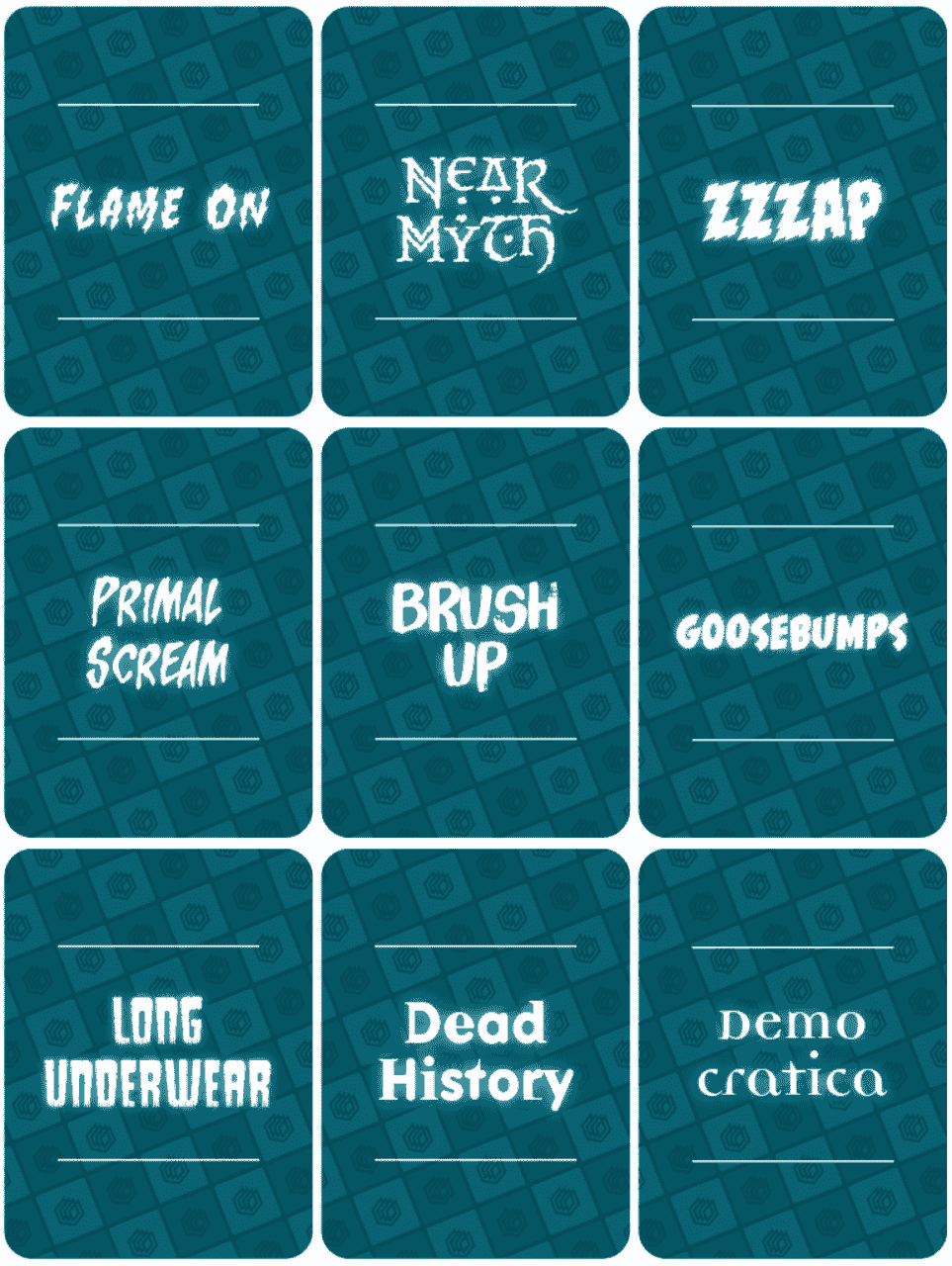
Adobe Express Halloween font list:
- CCFlameOn
- CCNearMyth
- CCZzzap
- CCPrimalScream
- Brush Up
- CCGoosebumps
- CCLongUnderwear
- Dead History OT
- Democratica OT
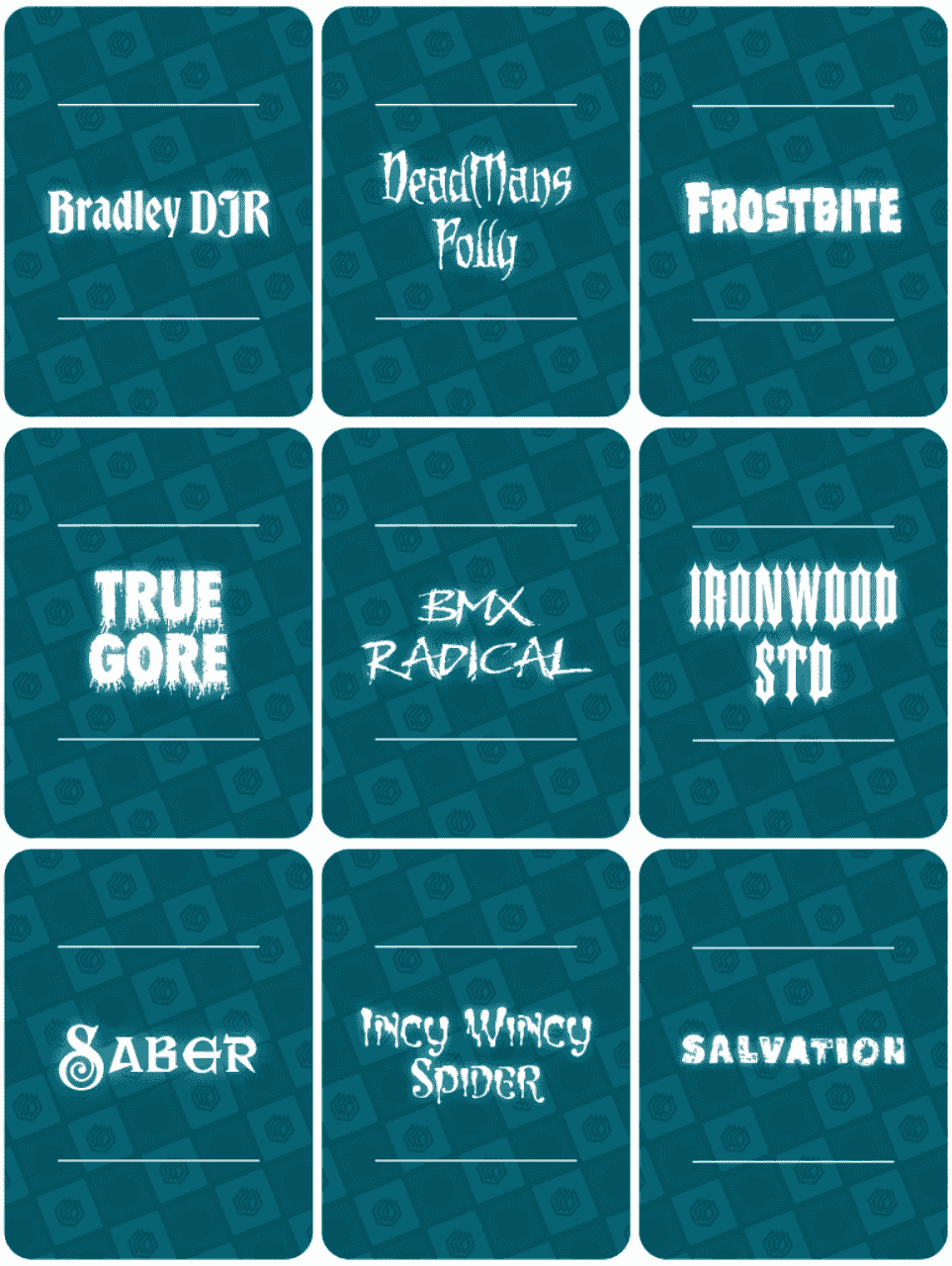
Adobe Express Halloween font list:
- Bradley DJR
- CCDeadMans
- CCFrostbite
- True Gore
- BMX Radical
- Ironwood Std
- Saber
- CCIncyWincySpider
- Salvation
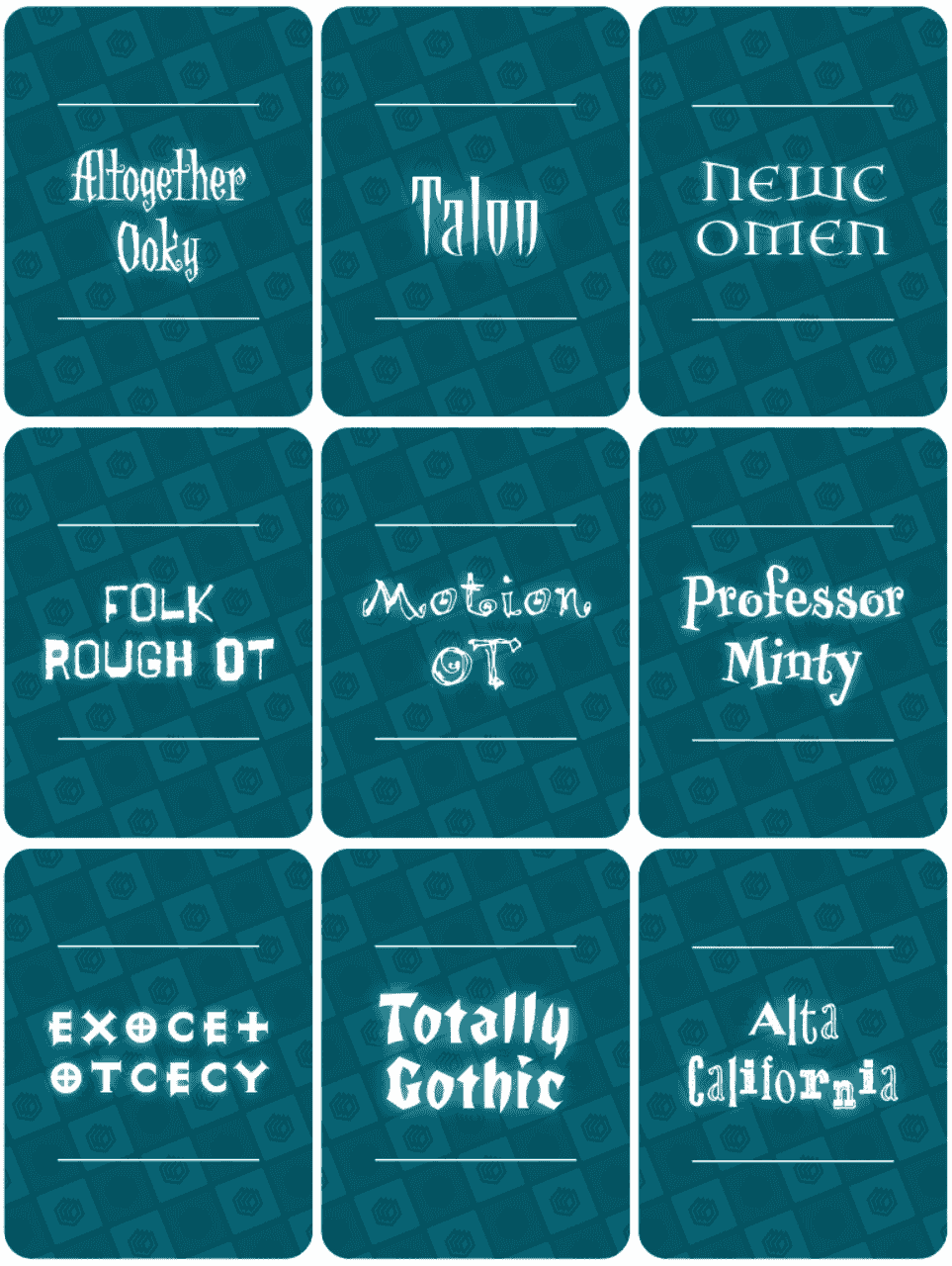
Adobe Express Halloween font list:
- CCAltogetherOoky
- Talon
- Newcomen
- Folk Rough OT
- Motion OT
- Professor Minty
- Exocet OTCECY
- TotallyGothic OT
- AltaCalifornia
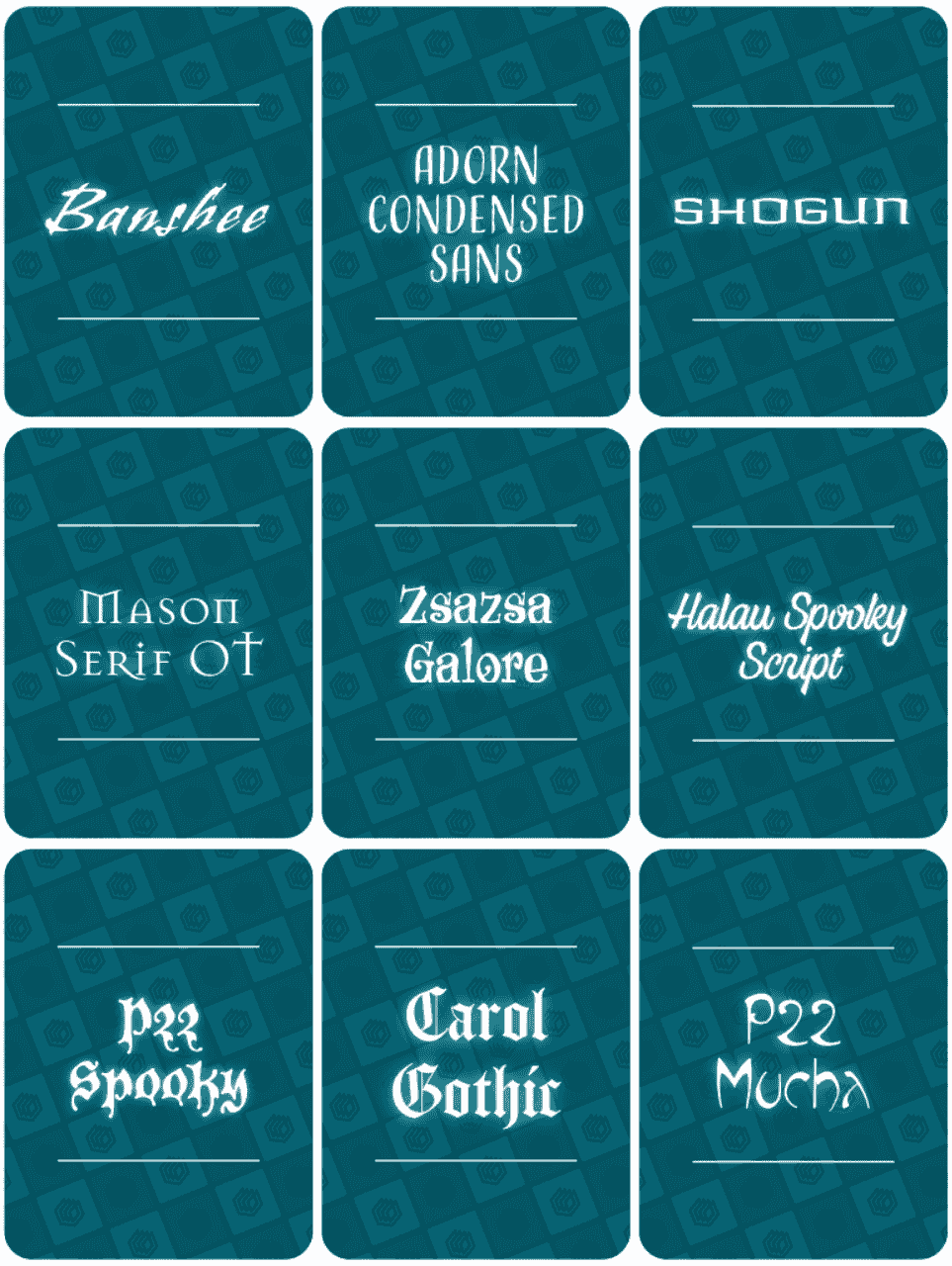
Adobe Express Halloween font list:
- Banshee Std
- Adorn Condensed Sans
- Shogun
- Mason Serif OT
- Zsazsa Galore
- Halau Spooky Script
- P22 Spooky
- Carol Gothic
- P22 Mucha
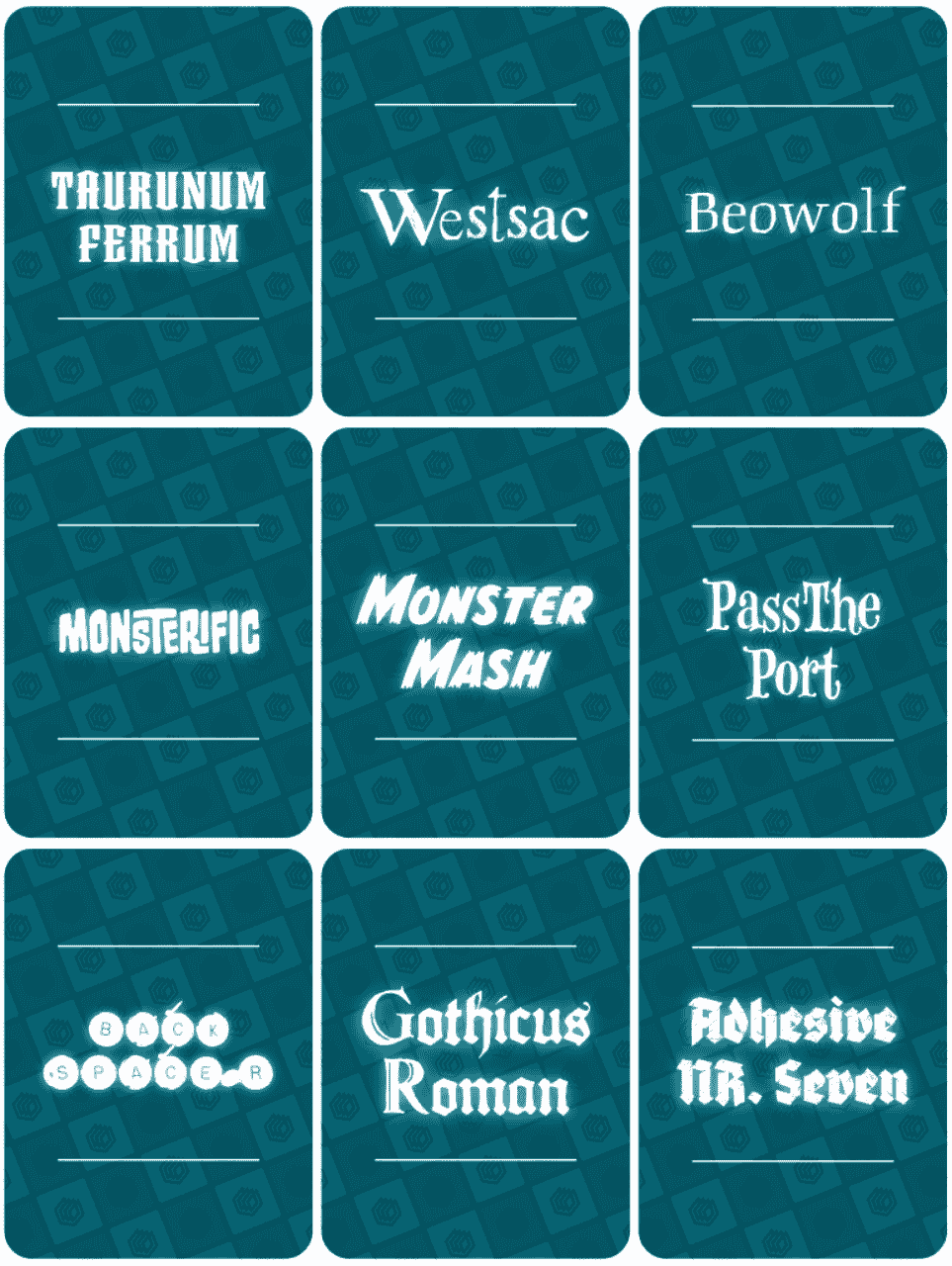
Adobe Express Halloween font list:
- Taurunum Ferrum
- Westsac
- Beowolf
- Monsterific BB
- CCMonsterMash
- CCPassThePort
- Backspacer OT
- Gothicus Roman
- Adhesive Nr. Seven
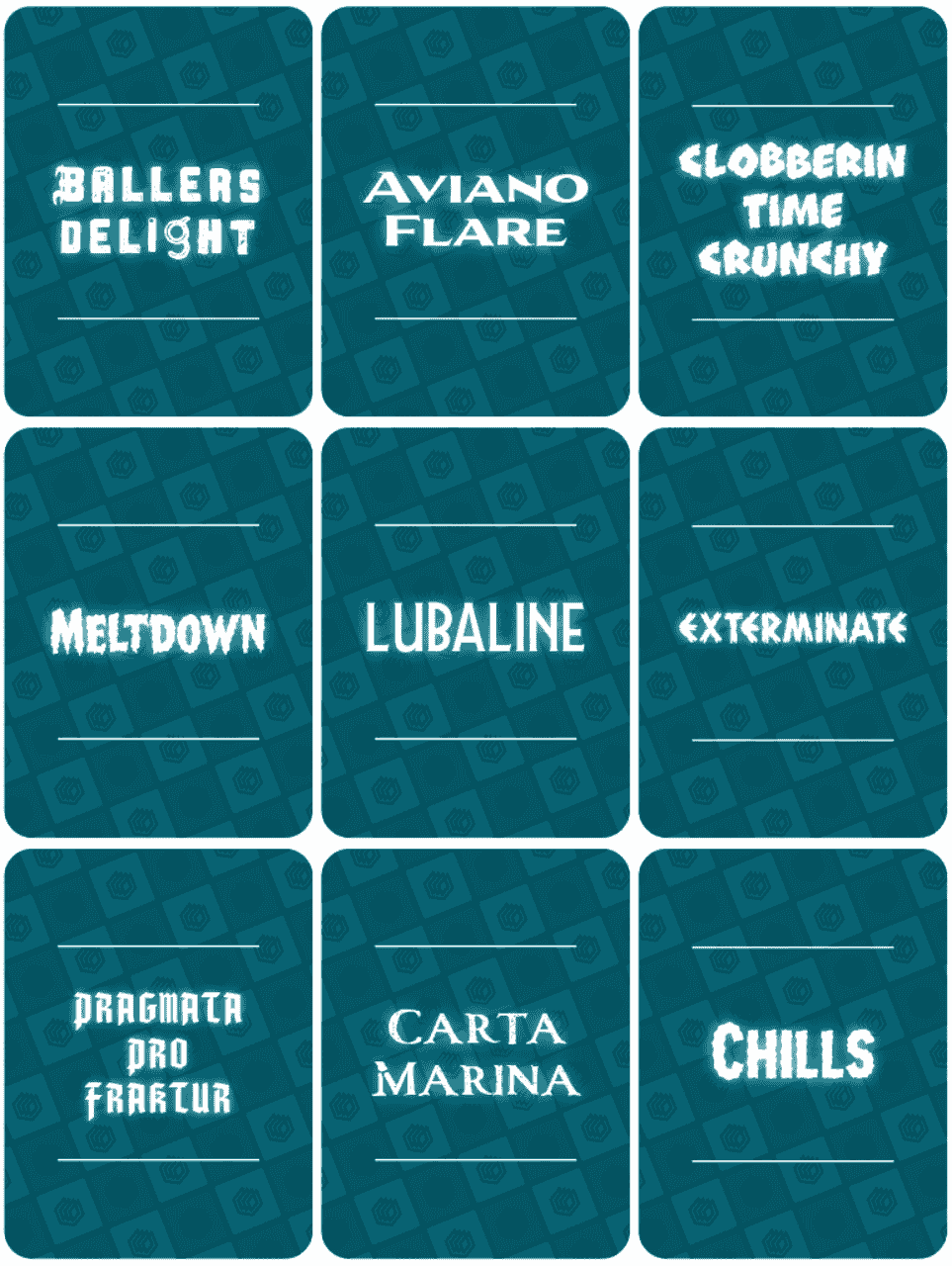
Adobe Express Halloween font list:
- Ballers Delight
- Aviano Flare
- CCClobberinTimeCrunchy
- CCMeltdown
- Lubaline
- CCExterminate
- PragmataPro Fraktur
- Carta Marina
- CCChills
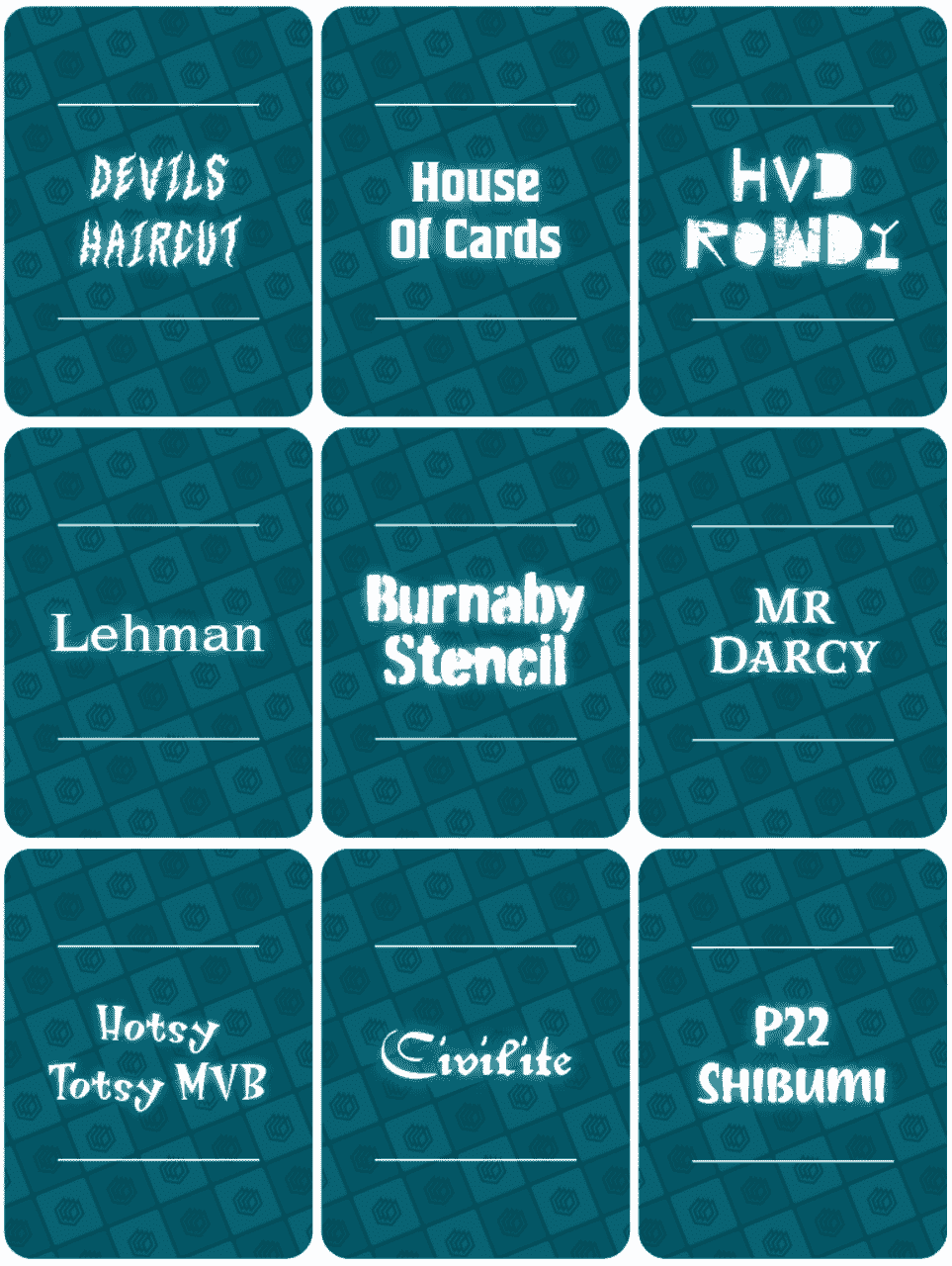
Adobe Express Halloween font list:
- Devils Haircut
- House of cards
- HVD Rowdy
- Lehmann
- Burnaby
- Mr Darcy
- Hotsy Totsy MVB
- P22 Civilite
- P22 Shibumi
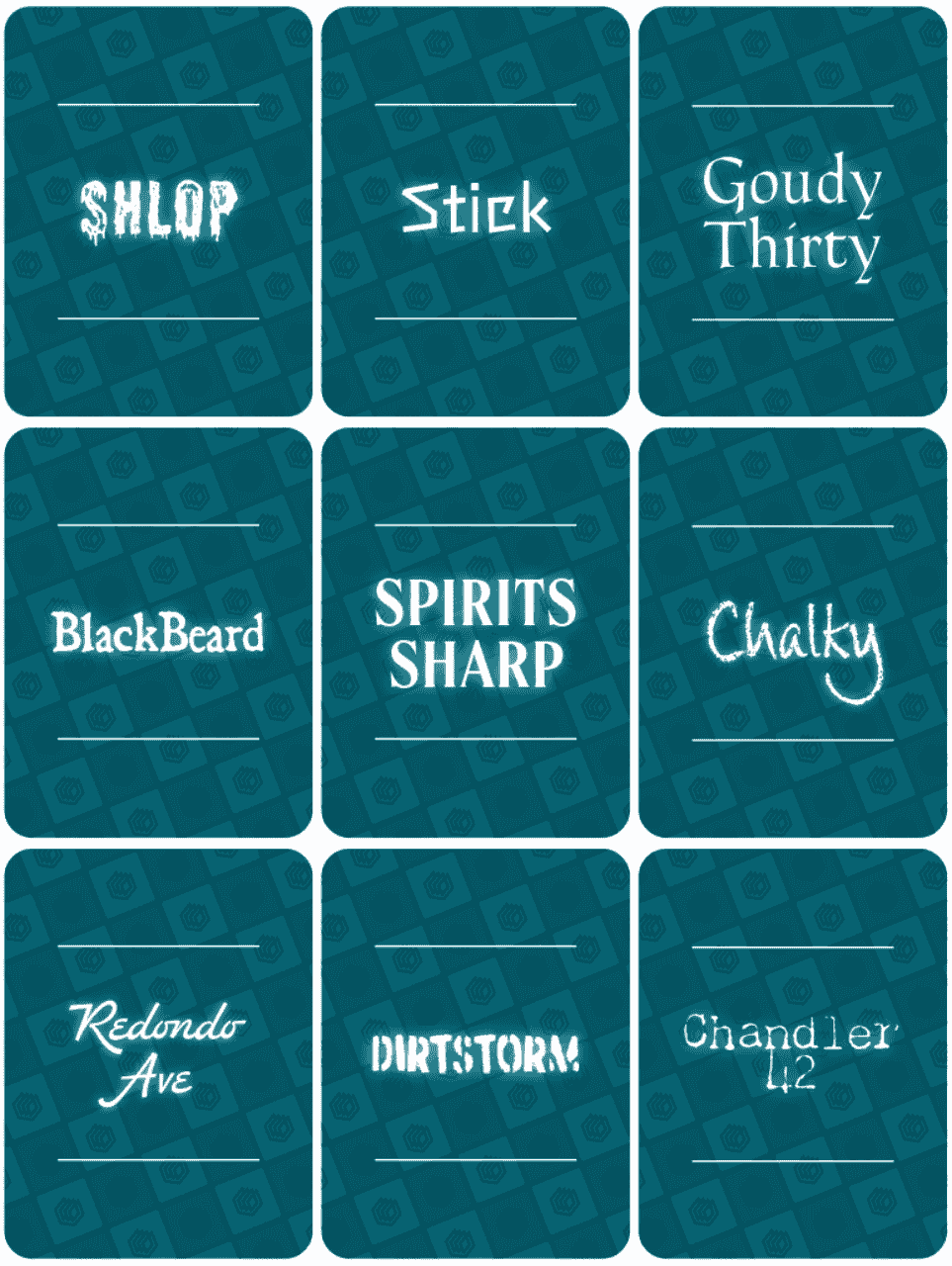
Adobe Express Halloween font list:
- Shlop
- Stick
- LTC Goudy Thirty
- BlackBeard
- Spirits Sharp
- Chalky
- Redondo Ave
- Dirtstorm
- Chandler42
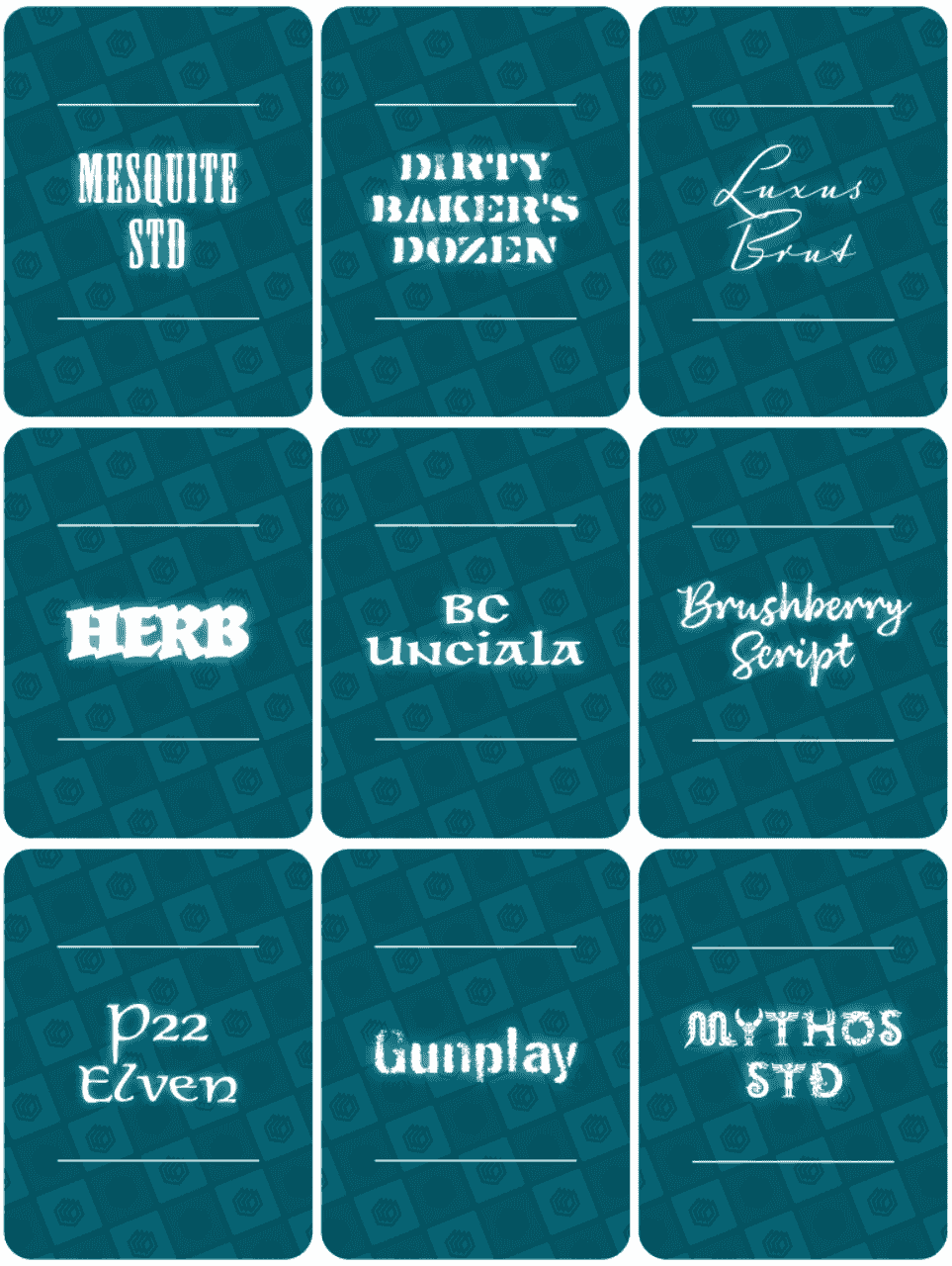
Adobe Express Halloween font list:
- Mesquite Std
- Dirty Baker’s Dozen
- Luxus Brut
- Herb
- BC Unciala
- Brushberry
- P22 Elven
- Gunplay
- Mythos Std
Halloween Font Combinations on Adobe Express
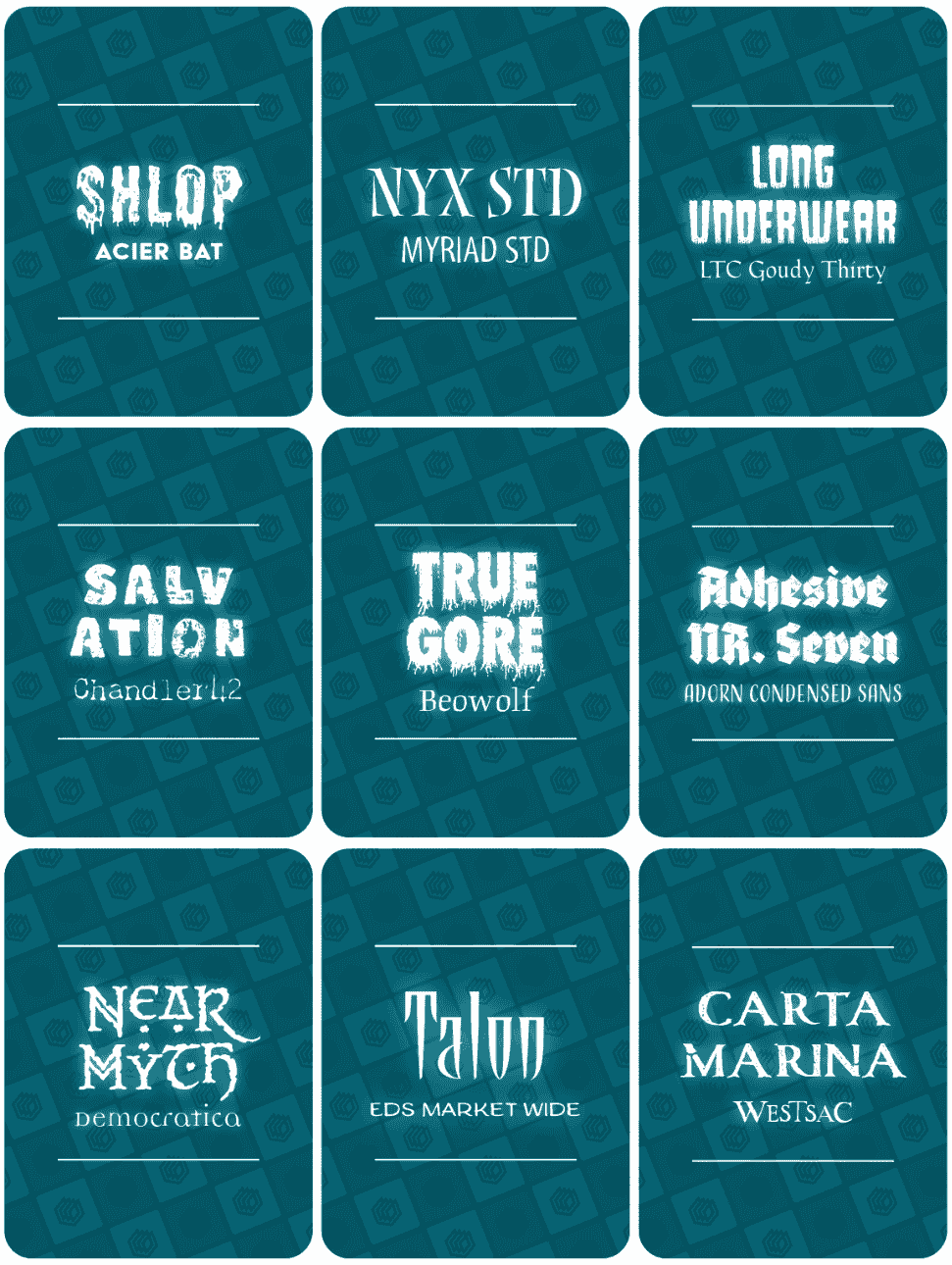
Adobe Express Halloween font pairings:
- Shlop + Acier BAT
- Nyx Std + Myriad Std
- CCLongUnderwear + LTC Goudy Thirty
- Salvation + Chandler42
- True Gore + Beowolf
- Adhesive Nr. Seven + Adorn Condensed Sans
- CCNearMyth + Democratica OT
- Talon + Eds Market Wide
- Carta Marina + Westsac
There you have it! With over 80 eerie fonts and chilling combinations to explore in Adobe Express, you’ve got everything you need to create designs that thrill, chill, and enchant this spooky season.